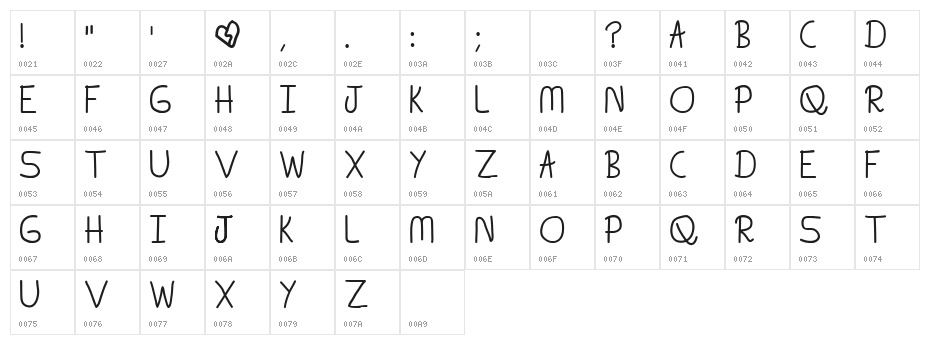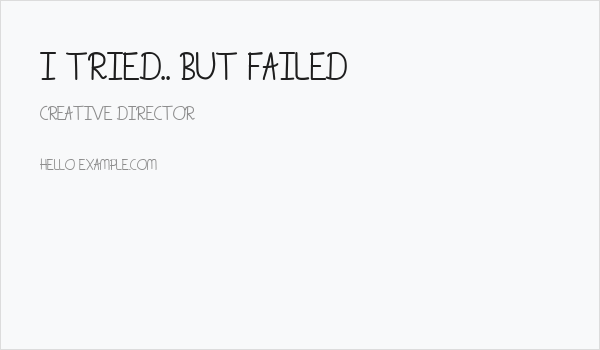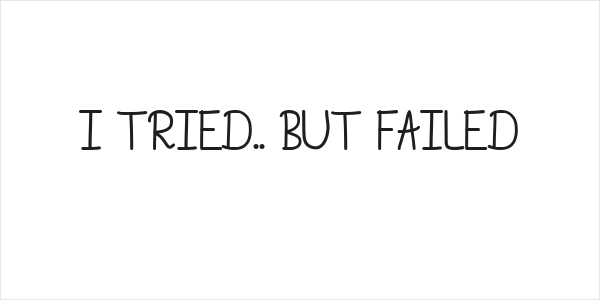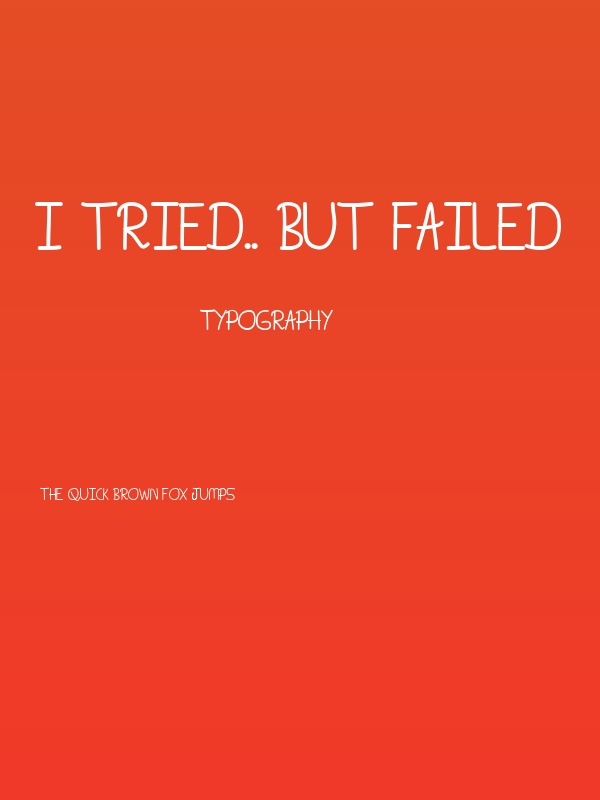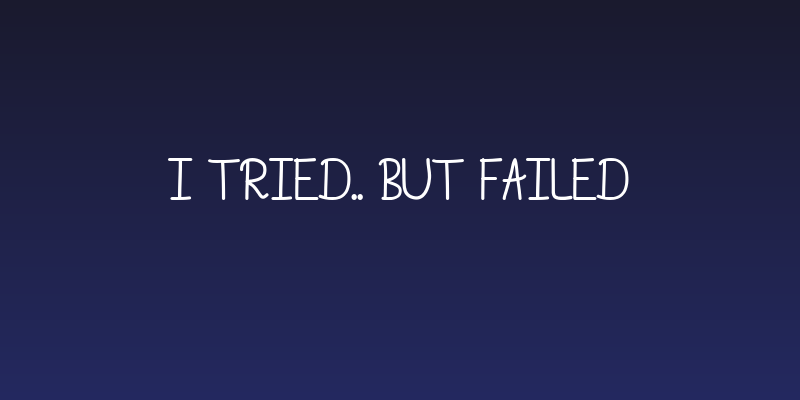
I Tried.. But Failed Font
I Tried.. But Failed Description
This playful and whimsical font features a handwritten style with a casual and friendly appearance. The letters are rounded and slightly irregular, giving it a personal touch. The uppercase and lowercase characters maintain a consistent flow, while the numbers and special characters add to its charm. The font's informal nature makes it suitable for creative projects that require a touch of personality and warmth.
| Use Case | Logos, Headlines, Informal Text |
| Proposed Projects | Ideal for greeting cards, children's books, playful branding, and social media graphics. |